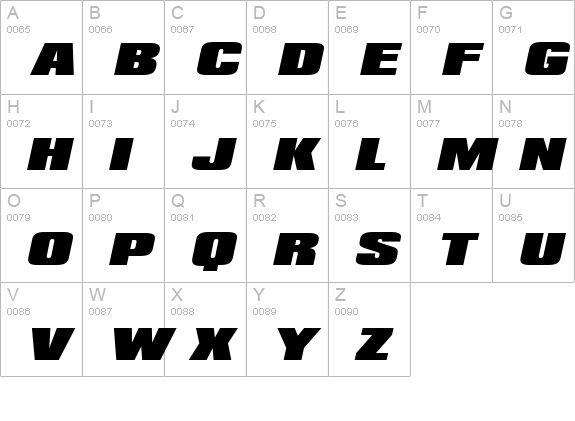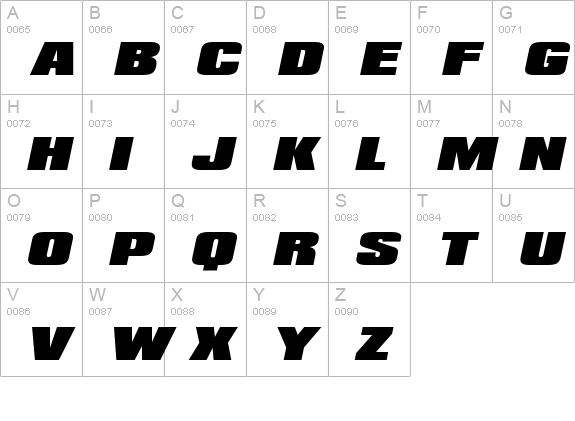
Padaloma Italic Font Details
Padaloma Italic is a distinctive, italic variant in the Padaloma typeface family \xE2\x80\x94 well suited to design and typography projects.
Padaloma Italic is a visually captivating font that effortlessly combines elegance and boldness. With its sleek and slanted letterforms, this font exudes a sense of sophistication and modernity. Its unique italic style adds a touch of artistic flair, making it the perfect choice for projects that require a touch of creativity. The flowing curves and graceful strokes of Padaloma Italic create a harmonious rhythm that is pleasing to the eye. Each letter is carefully crafted to maintain a balance between legibility and aesthetic appeal, resulting in a font that is both easy to read and visually stunning. Whether used for headlines, logos, or body text, Padaloma Italic is versatile and adaptable. Its timeless design makes it suitable for a wide range of applications, from branding and advertising to editorial design and beyond. This font effortlessly elevates any project, adding a touch of sophistication and professionalism. What sets Padaloma Italic apart is its availability as a free font. It can be freely downloaded at FontsMarket.com, making it accessible to designers and creatives around the world. This allows individuals to take advantage of its unique style without the burden of cost, making it a valuable asset for both personal and commercial projects. In conclusion, Padaloma Italic is a stunning font that combines elegance, boldness, and artistic flair. Its versatility and accessibility make it a must-have for any designer or creative looking to make a statement. Download it for free at FontsMarket.com and let the creativity flow.